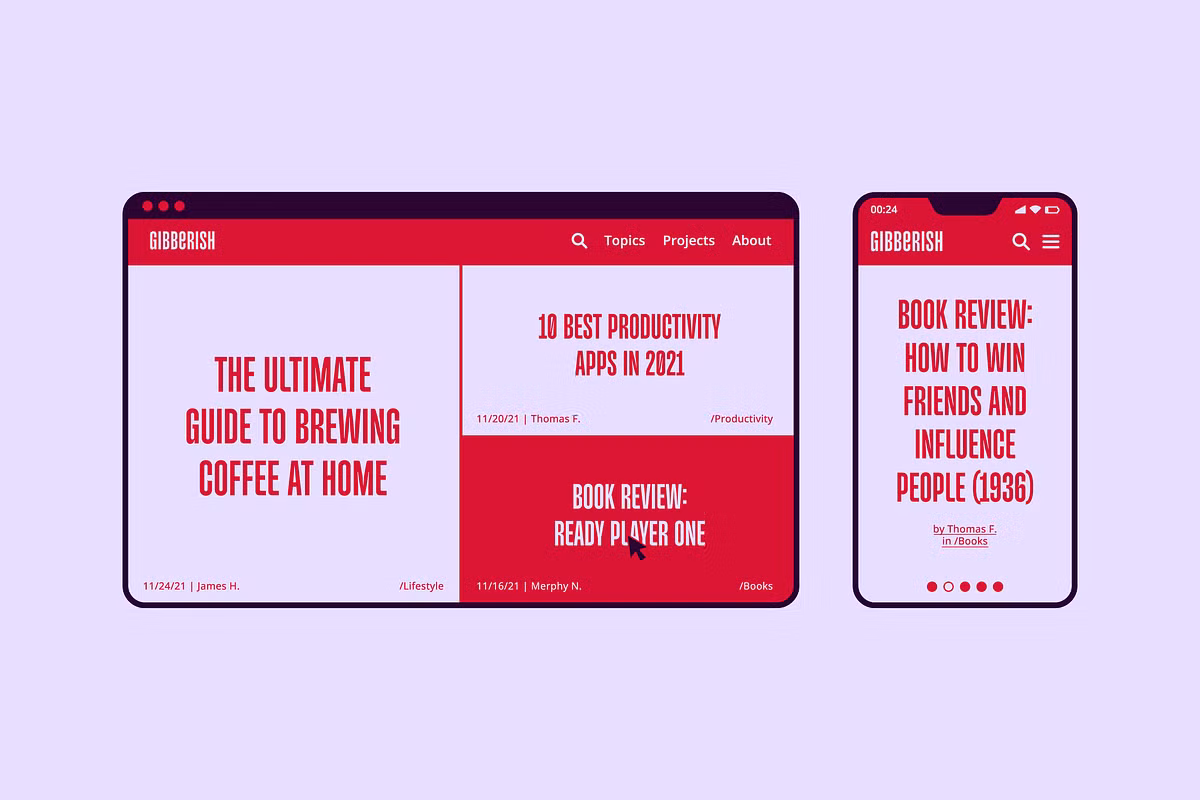
Monologue Font: Bold Condensed Sans Serif for Impactful Design
The Monologue font is really something special – it’s simple, but also bold and complicated all at once. As a condensed sans serif font, it’s been carefully made for designers who want to make a big impact with their work. It doesn’t matter if you’re designing for something that will be printed or seen on a screen, Monologue always stands out. That’s why it’s a great choice for lots of different projects, like headlines, billboards, magazines, websites, titles, posters, branding, and logos. In this article, we’ll take a closer look at what makes the Monologue font tick, how you can use it, and what kind of style it can bring to your designs.
With its unique personality, Monologue is perfect for designers who want to add some excitement to their work. Whether you’re working on a big project or just need a font that will grab people’s attention, Monologue is definitely worth considering. Its bold and complex personality makes it a great choice for making a strong impression, and its simplicity ensures that it’s easy to read and understand. Overall, the Monologue font is a great tool for designers who want to create something truly special.
Design Style of Monologue
What makes Monologue stand out is its one-of-a-kind design. The way it’s structured, all condensed and compact, means you can fit a lot of text into a small space without sacrificing how easy it is to read – whether it’s big or small. This is super useful for projects where space is tight, like billboards or magazine layouts. And because it’s a bold font, it really grabs your attention, making it perfect for headlines and titles.
Plus, its unique look sets it apart from other fonts, giving your project a distinctive feel. Whether you’re working on a big campaign or a small design project, Monologue is a great choice because it’s versatile and eye-catching. Its condensed style also means you can use it in a variety of contexts, from digital designs to print materials, and it will always look great.
Character Sets and Features
Monologue provides an extensive set of characters, making it suitable for a wide range of languages. It includes basic Latin characters, numerals, punctuations, and symbols, ensuring that your design can communicate effectively across different writing systems. Notably, Monologue also supports Slavic languages, featuring a Cyrillic alphabet to cater to diverse audiences.
Stylistic Alternates and Ligatures
One of the standout features of the Monologue font is its wealth of stylistic alternates and ligatures. With over 100 discretionary ligatures, you can create personalized typography that adds an additional layer of sophistication to your designs. The six stylistic sets (ss01–ss06) provide options for various design needs, allowing you to choose the best representation of your brand or message.
Use Cases for Monologue
The flexibility of Monologue makes it a great fit for many different uses. Let’s take a look at some specific examples where this font really stands out.
- Headlines: Monologue really shines with its bold and condensed style, ideal for grabbing attention in both print and digital formats.
- Billboards: Monologue ensures that your message is easily readable from a distance, making it excellent for outdoor advertising.
- Magazines: This font has clean lines and a modern look that works well with the style and readability needed in magazine layouts.
- Branding: Monologue can effectively represent your brand identity in logos and promotional materials requiring strong visual impact.
- Web Design: The font is suitable for website headings and titles, helping to create a cohesive and engaging online presence.
Pairing Suggestions for Monologue
When it comes to typography, pairing fonts effectively can elevate your design. Here are some recommendations for pairing Monologue with other typefaces:
- Serif Fonts: Pair Monologue with a classic serif font like Georgia or Times New Roman to create a dynamic contrast.
- Script Fonts: Combining Monologue with a flowing script font can add elegance, perfect for invitations or artistic projects.
- Modern Sans Serif: For a minimalist style, pair Monologue with sans serif fonts like Open Sans or Lato for clean designs.
If you want to make a statement with your typography, Monologue is a great choice. It’s got some stylish features that can help you create designs that really stand out. So why not give it a try? Whether you’re working on a poster, a website, or something else entirely, Monologue can help you achieve some really impactful results.